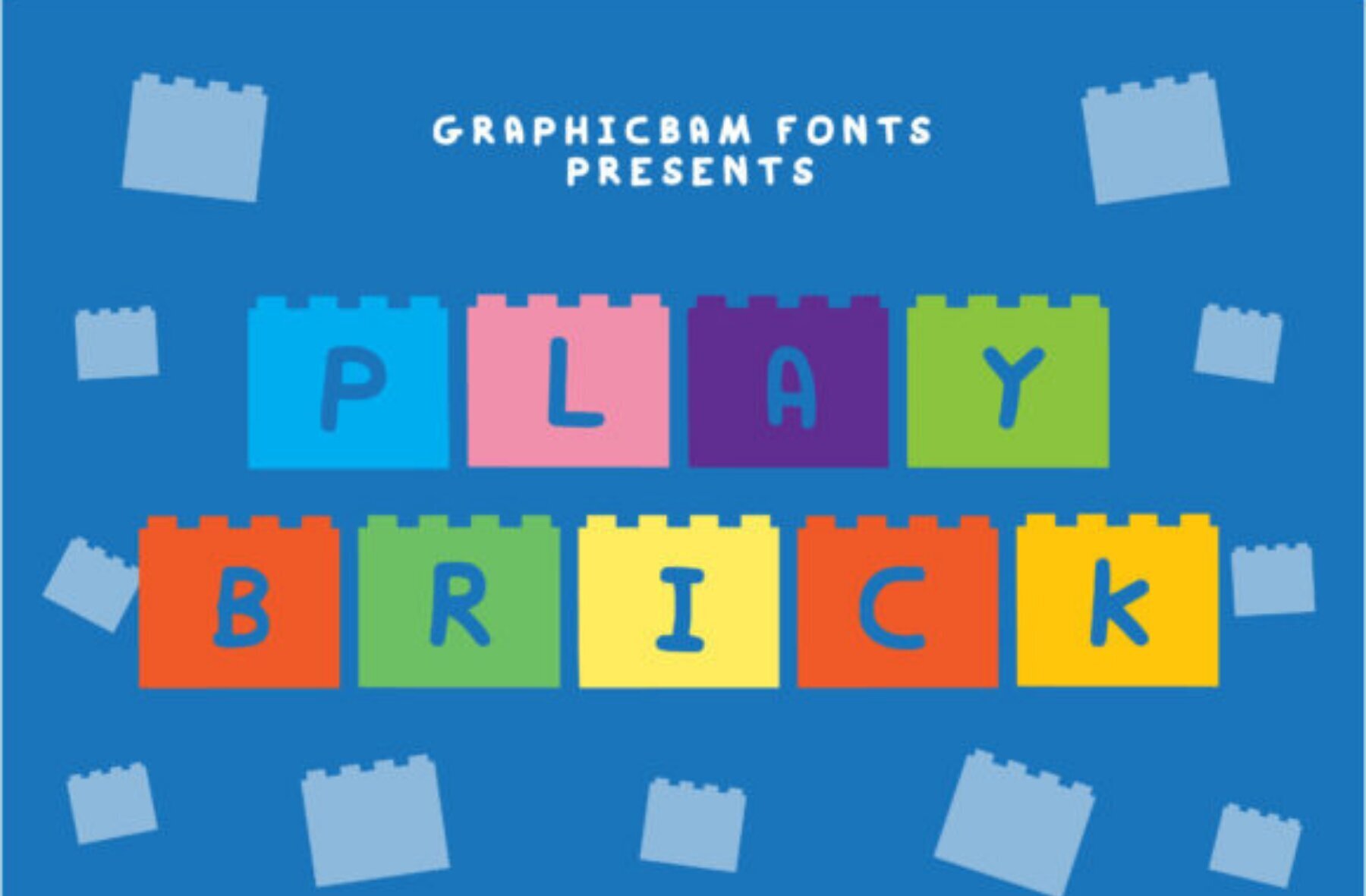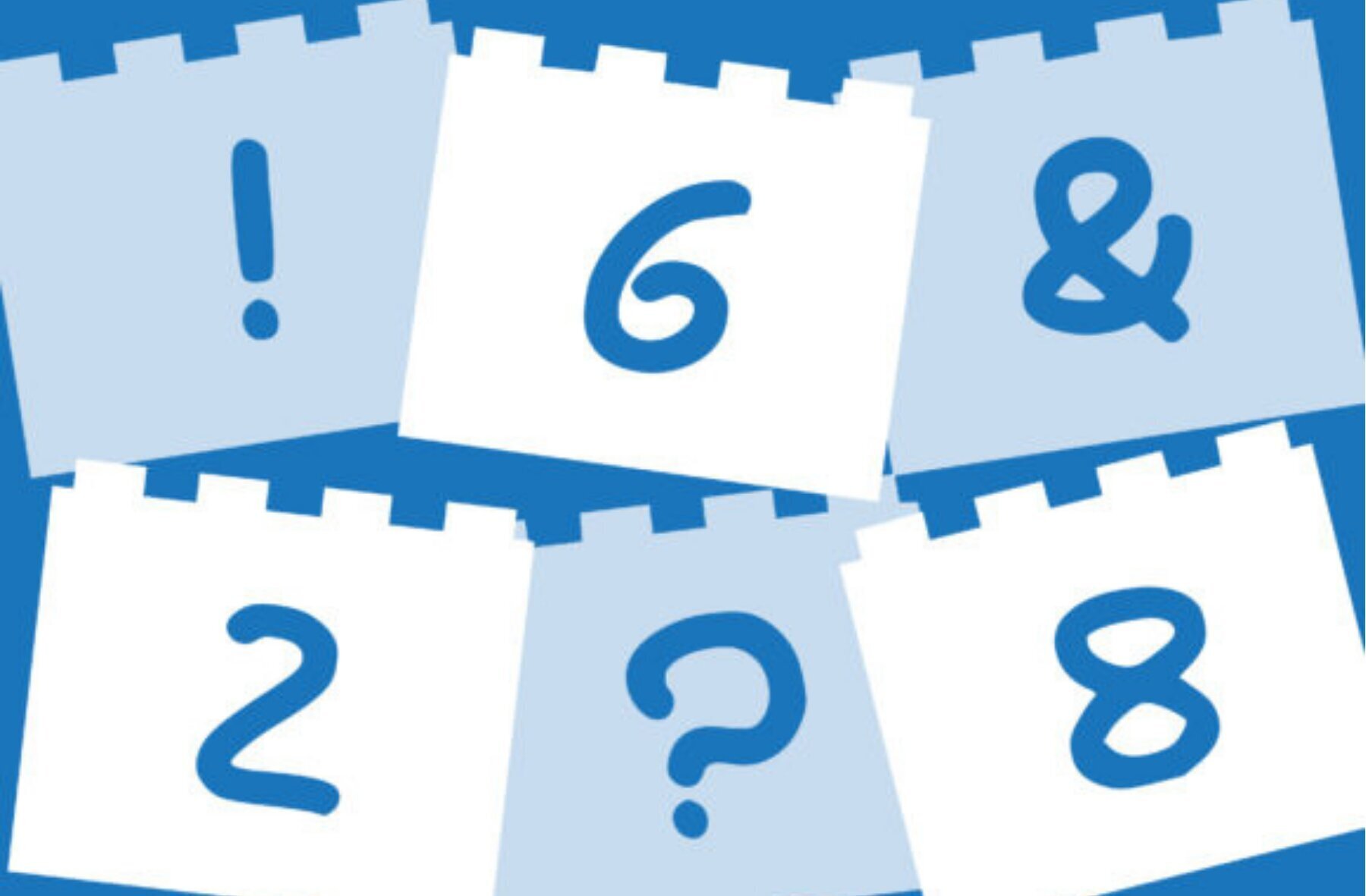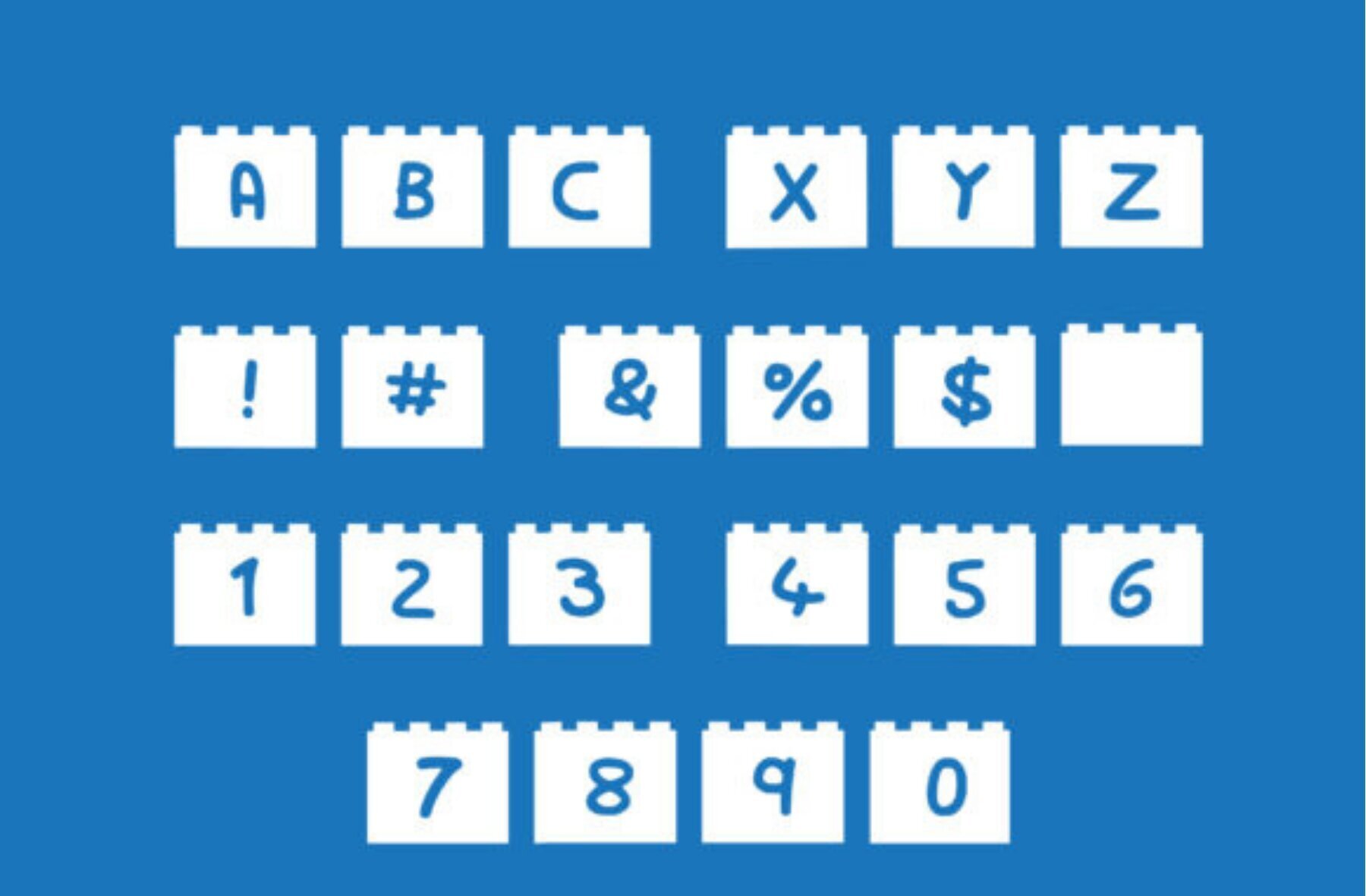
Play Brick Font
Play Brick Regular
Unleash your creativity with Play Brick, a distinctive decorative font featuring an intricate brick design on each character. Ideal for adding a playful touch to crafts, digital design projects, or greeting cards, this font captures attention effortlessly. Let your projects stand out with its unique structure, combining style with fun.Play Brick: The Art of Typographic Construction